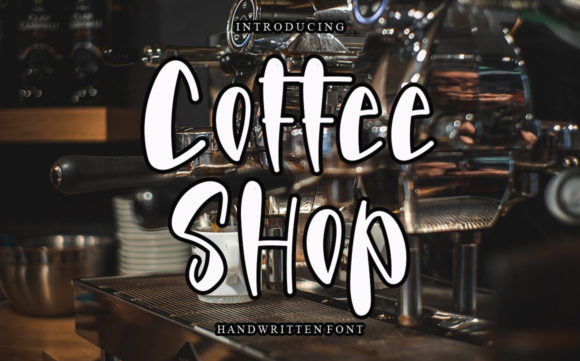
Coffee Shop Font: The Perfect Addition to Your Design Collection
Are you a designer or crafter looking for a unique and refreshing font to elevate your designs? Look no further than the Coffee Shop Font, a chic, friendly, and casual handwritten font that’s sure to add a touch of warmth and personality to your projects.
What is Coffee Shop Font?
Coffee Shop Font is a carefully crafted handwritten font that’s perfect for those who want to add a personal touch to their designs. With its elegant and flowing lines, this font exudes a sense of friendliness and approachability, making it ideal for a wide range of design applications, from branding and packaging to social media graphics and more.
Key Features of Coffee Shop Font
- Handwritten style: Coffee Shop Font boasts a beautiful, handwritten style that’s perfect for adding a personal touch to your designs.
- Chic and friendly: This font’s elegant lines and flowing curves give it a chic and friendly feel that’s sure to resonate with your audience.
- Casual vibe: Coffee Shop Font has a relaxed, casual vibe that’s perfect for designs that need to feel approachable and down-to-earth.
- Highly versatile: Whether you’re designing a logo, brochure, or social media graphic, Coffee Shop Font is highly versatile and can be used in a wide range of design applications.
Why Choose Coffee Shop Font?
So why choose Coffee Shop Font over other fonts on the market? Here are just a few reasons why designers and crafters love this font:
- Unique and refreshing: Coffee Shop Font is a breath of fresh air in a world of generic, overused fonts. Its unique style is sure to make your designs stand out from the crowd.
- Easy to read: Despite its elegant lines and flowing curves, Coffee Shop Font is highly legible and easy to read, even at small sizes.
- Customizable: With Coffee Shop Font, you can easily customize the font to suit your design needs, from adjusting the font size and color to adding your own unique touches.
How to Use Coffee Shop Font in Your Designs
Ready to add Coffee Shop Font to your design collection? Here are a few tips for incorporating this beautiful font into your designs:
- Pair it with bold graphics: Coffee Shop Font pairs perfectly with bold graphics and bright colors, making it ideal for designs that need to pack a punch.
- Use it for headings and titles: With its elegant lines and flowing curves, Coffee Shop Font is perfect for headings and titles that need to make a statement.
- Add a personal touch: Use Coffee Shop Font to add a personal touch to your designs, from handwritten notes and quotes to custom illustrations and more.
Coffee Shop Font in the Design Industry
Coffee Shop Font is more than just a font – it’s a design essential that’s quickly become a favorite among designers and crafters. Whether you’re working on a branding project, creating social media graphics, or designing packaging, this font is sure to elevate your designs and add a touch of personality.
In conclusion, Coffee Shop Font is a must-have addition to any design collection. With its chic, friendly, and casual style, this font is perfect for designers and crafters who want to add a personal touch to their designs. Whether you’re working on a branding project, creating social media graphics, or designing packaging, Coffee Shop Font is the perfect choice. So why wait? Download Coffee Shop Font today and start elevating your designs to the next level!